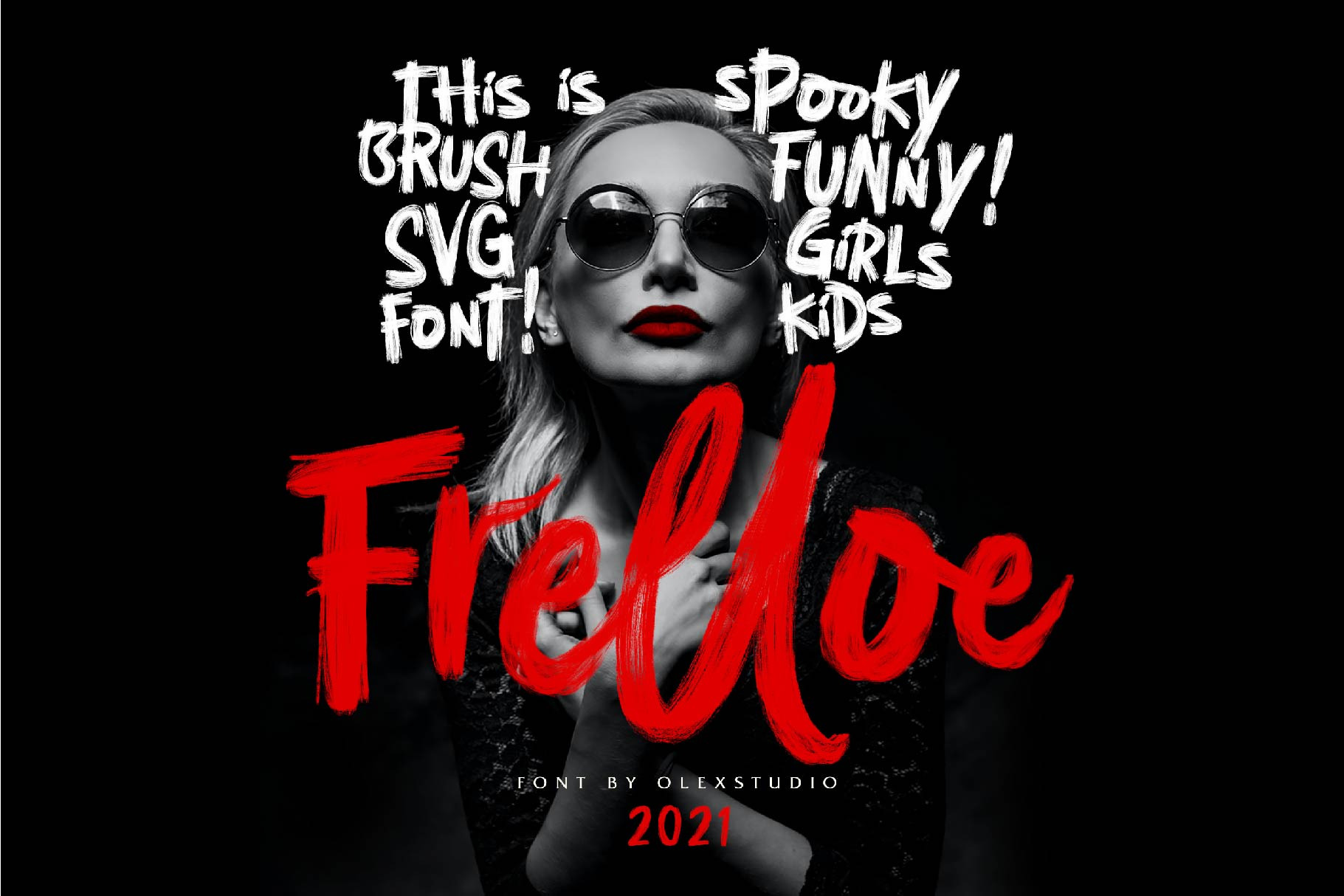
FRELLOE - SVG FONT
Frelloe is a beautiful SVG brush font, with brush stroke textures making your designs even better. To change the font color, you can change it in Photoshop CC 2017 (or later version) by clicking on the font and clicking on layer layer style color overlay
- Frelloe SVG - Realistic Brush Fonts
- Frelloe SVG - Traditional vector version of the font, less detail than SVG but is a nice rough version that works universally on all software.